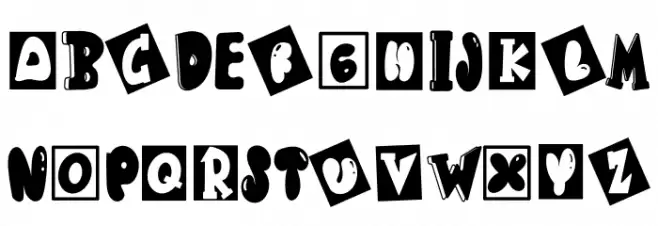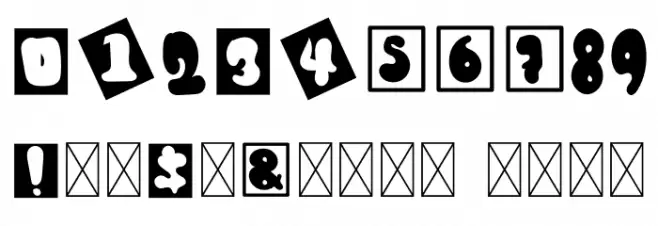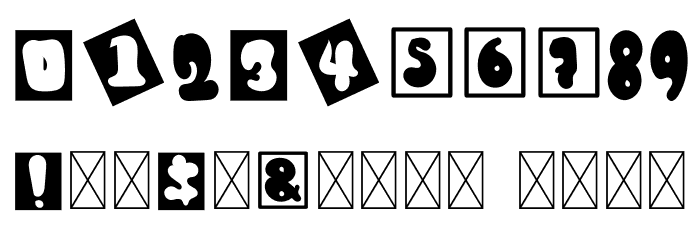
The Short Beauty
This playful and quirky font features a mix of bold, irregular shapes with a high contrast between thick and thin strokes. Each character is uniquely designed, often enclosed within a square or rectangle, giving it a collage-like appearance. The font combines elements of both uppercase and lowercase styles, creating a dynamic and visually engaging look. Its whimsical nature makes it stand out, with each letter appearing as if it has been cut out and pasted from different sources. The numbers and special characters follow the same eclectic style, adding to the font's overall charm and uniqueness.
A playful, collage-like font with bold, irregular shapes and high contrast.
- Proposed Projects: Ideal for children's book covers, playful posters, creative branding, and eye-catching headlines.
- Contrast: High
- Overall Style: Decorative